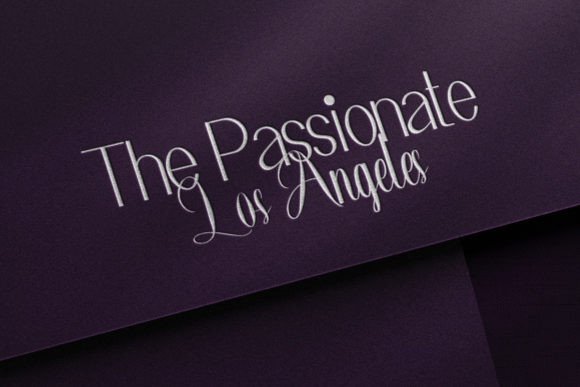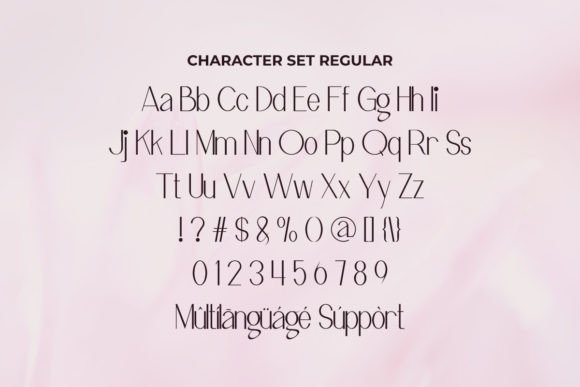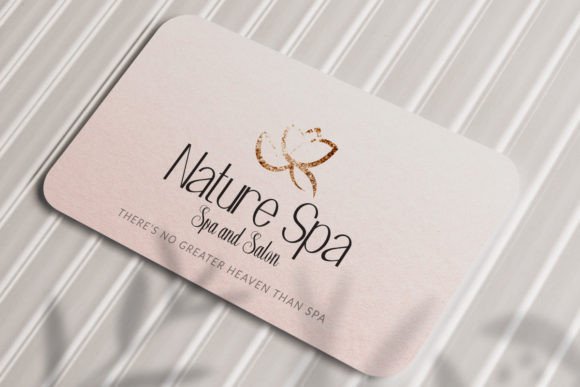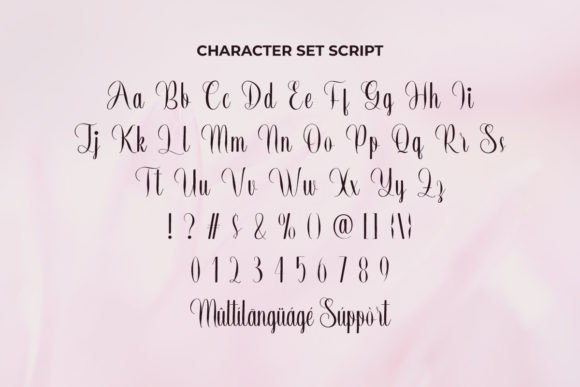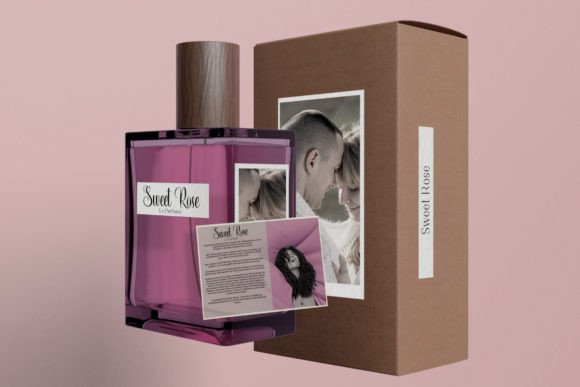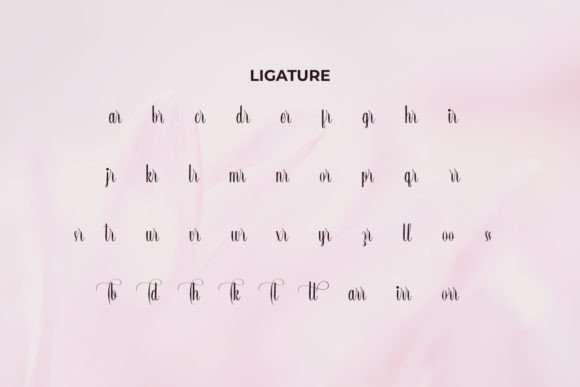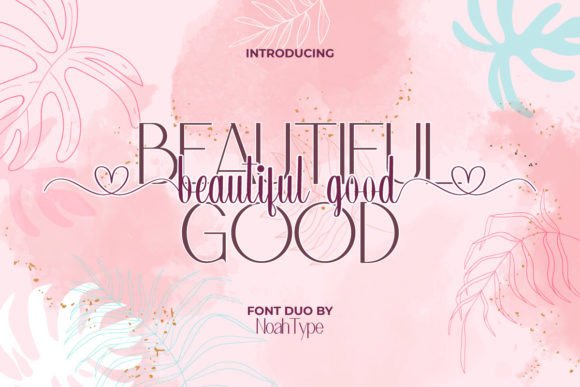
Introducing Beautiful Good Duo Font: Elevate Your Designs with Elegance
Are you a designer or crafter looking for the perfect font duo to add a touch of sophistication to your creations? Look no further than the Beautiful Good Duo Font, a stylish and modern script and sans font combination designed to complement each other perfectly.
What is Beautiful Good Duo Font?
Beautiful Good Duo Font is a carefully crafted font pairing that consists of two distinct fonts: a beautiful script font and a clean sans font. Together, they form a harmonious union that is sure to elevate your designs to the next level. Whether you’re working on a branding project, a wedding invitation, or a craft project, this font duo is ideal for adding a chic and elegant touch.
Key Features of Beautiful Good Duo Font
• Script Font: The script font in the Beautiful Good Duo Font is a stunning, handwritten font with elegant swashes and flourishes. It’s perfect for adding a touch of sophistication and glamour to your designs.
• Sans Font: The sans font is a clean and modern font that’s perfect for adding a touch of simplicity and elegance to your designs. It’s highly legible and works well for body text and headings.
• Perfect Pairing: The script and sans fonts are designed to work together seamlessly, creating a beautiful and harmonious visual effect.
• High-Quality Design: The Beautiful Good Duo Font is designed with high-quality craftsmanship in mind, ensuring that your designs look professional and polished.
Why Choose Beautiful Good Duo Font?
There are many font duos on the market, but Beautiful Good Duo Font stands out from the rest. Here are just a few reasons why:
• Unique and Stylish: The Beautiful Good Duo Font is a unique and stylish font combination that’s sure to make your designs stand out from the crowd.
• Versatile: This font duo is highly versatile and can be used for a wide range of design projects, from branding and advertising to wedding invitations and craft projects.
• Elegant and Chic: The Beautiful Good Duo Font adds a touch of elegance and chicness to any design, making it perfect for designers and crafters who want to create sophisticated and polished creations.
How to Use Beautiful Good Duo Font
Using the Beautiful Good Duo Font is easy. Here are just a few tips to get you started:
• Pair the Fonts: Use the script and sans fonts together to create a beautiful and harmonious visual effect.
• Use as Headings: Use the script font as a heading font to add a touch of elegance and sophistication to your designs.
• Use as Body Text: Use the sans font as a body text font to add a touch of simplicity and elegance to your designs.
• Experiment with Swashes: Experiment with the swashes and flourishes in the script font to add a touch of personality to your designs.
Font Name Beautiful Good Duo Font
Author NoahType